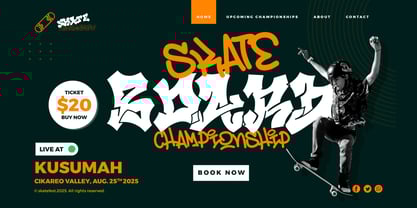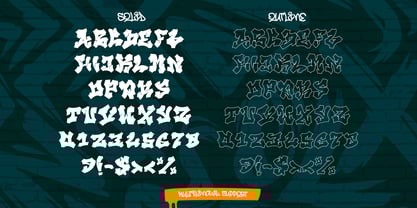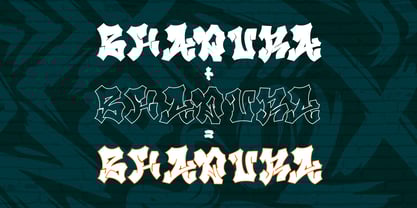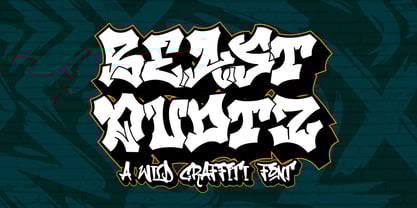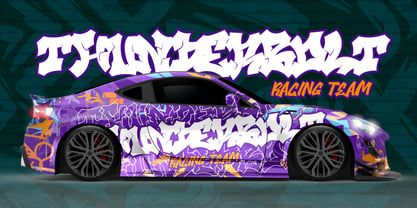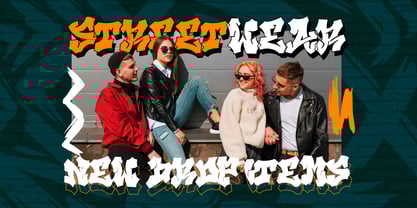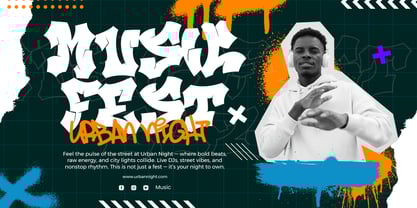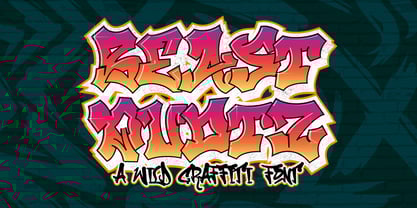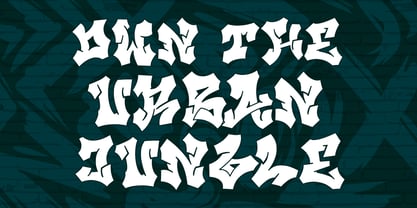
Beast Quotz Outline
Beast Quotz is a wildstyle graffiti display font featuring two distinct styles: Solid and Outline. Designed with urban expression and typographic rebellion in mind, Beast Quotz delivers high-impact visual energy for streetwear branding, music graphics, apparel, and poster design.
Features:
• 2 Style Variants: Solid and Outline
• Designed for headlines, stickers, and street art themes
• Great for layering effects and bold titles
An excellent choice for creatives who want a bold graffiti font that stands out in any medium.